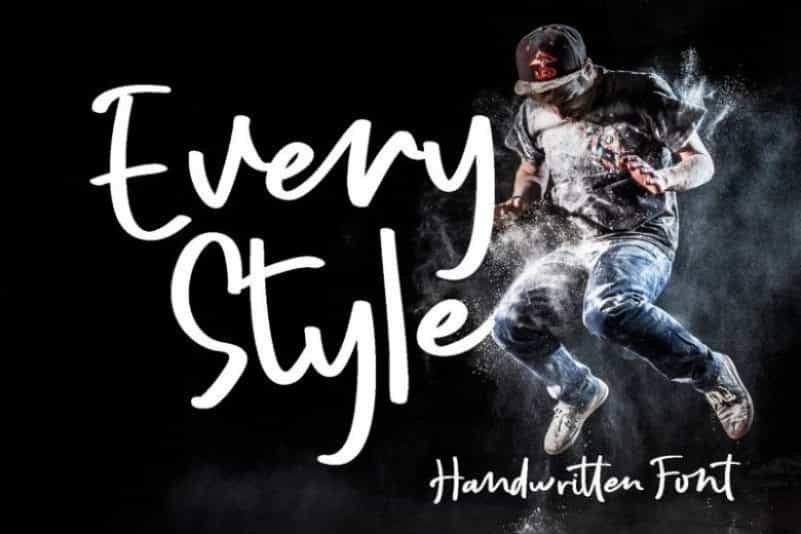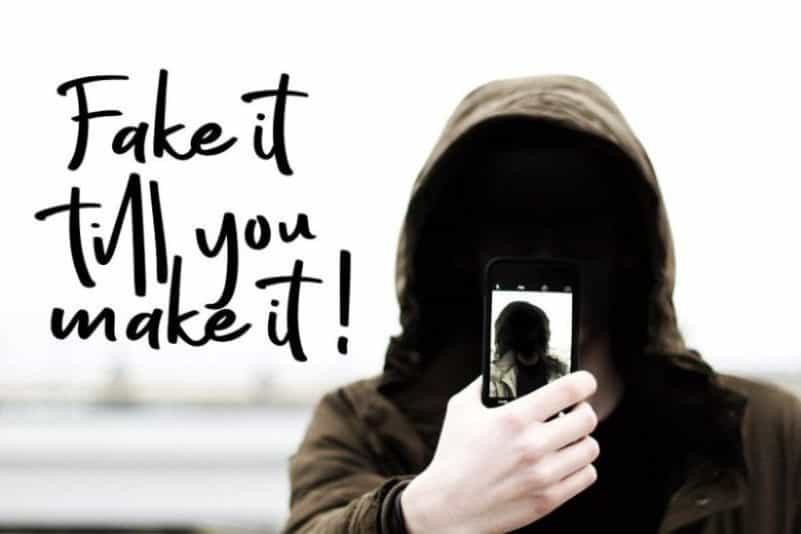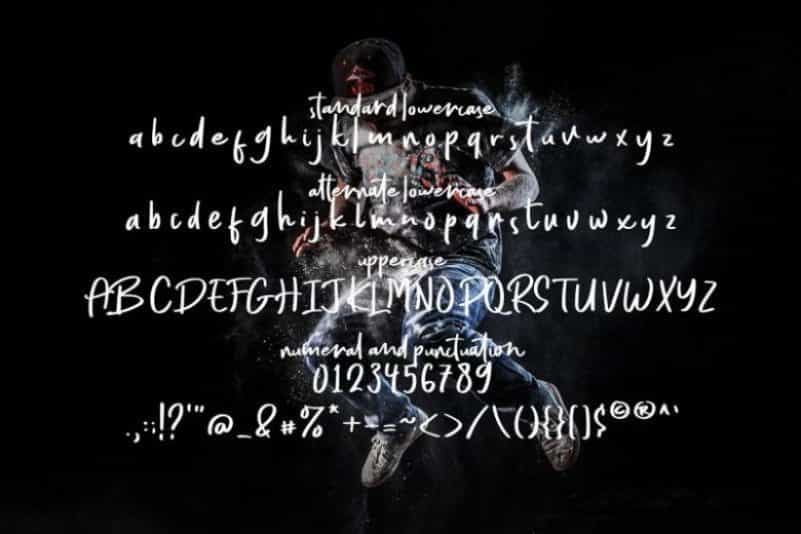
Every Style Script font every is casual handwritten font. It is a specific script which can be only used by one person and nobody else, thus people call it signature script. This handwritten style will give the personal touch to any design. The logo is design and shared by alphArt.